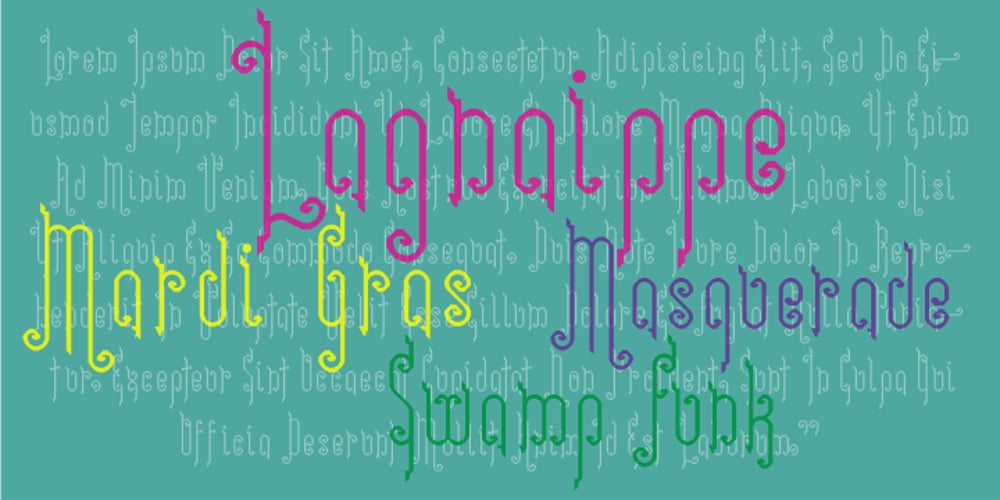
Lagniappe Font Family was designed by Wilson Thomas and published by Funk King. Lagniappe contains 1 styles and family package options. Lagniappe is a thin decorative font. Kerning is not the best on this one. You may want to adjust as needed.